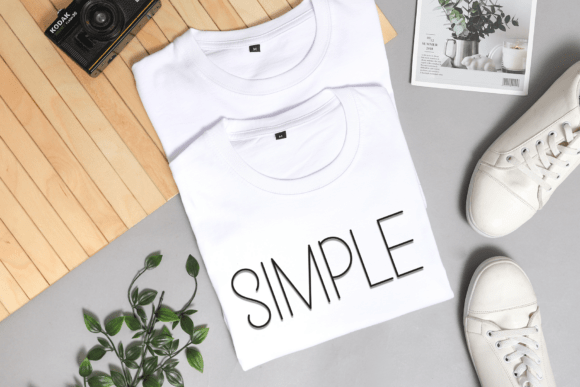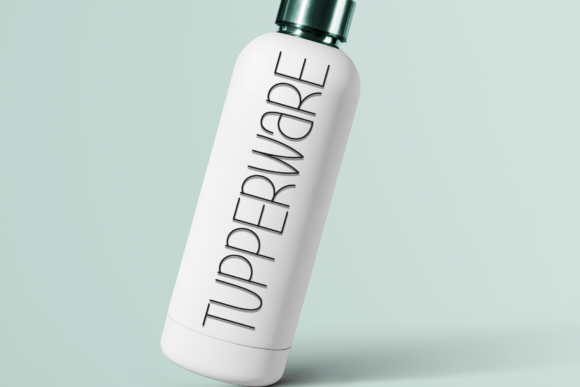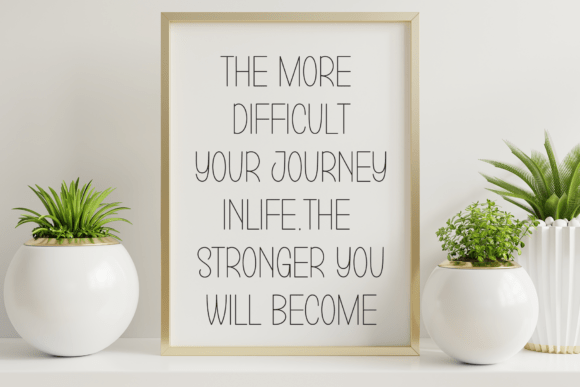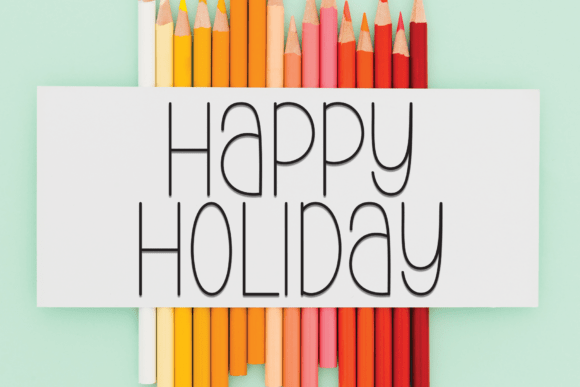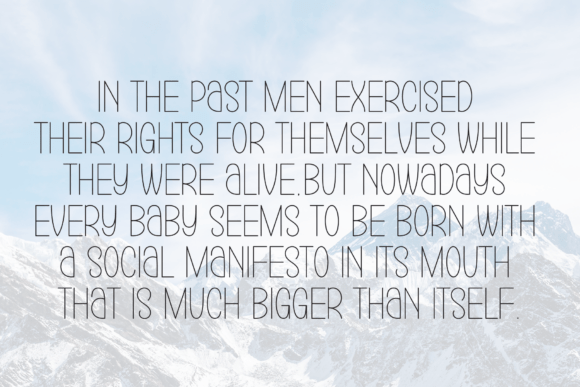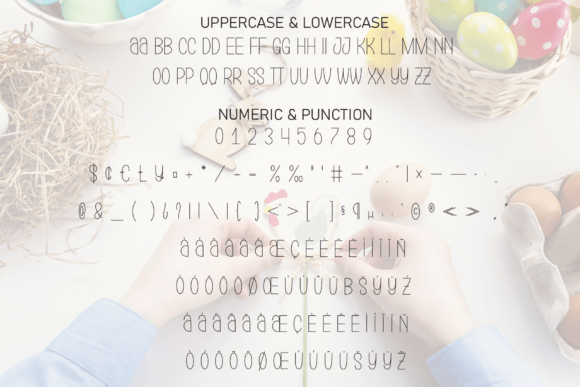
Easter Stickers Font: The Perfect Addition to Your Easter-Themed Designs
As Easter approaches, designers and crafters are on the lookout for the perfect fonts to add a touch of festivity to their projects. If you’re looking for a font that exudes a fresh, friendly vibe, look no further than Easter Stickers Font. This casual and neat display font is perfect for adding a playful touch to your Easter-themed designs, from packaging to posters and social media graphics.
Clean Lines and Relaxed Structure
Easter Stickers Font boasts clean lines and a relaxed structure, making it an excellent choice for a wide range of design projects. The font’s approachable design adds charm and clarity to projects, while maintaining a polished appearance. Whether you’re designing Easter-themed packaging, posters, or social media graphics, Easter Stickers Font is the perfect choice.
Easter Stickers Font is a versatile font that’s perfect for both designers and crafters. Designers can use the font to create stunning Easter-themed designs for clients, while crafters can use it to add a personal touch to their DIY projects. The font’s clean and simple design makes it easy to read and understand, making it perfect for a wide range of applications.
Easter-Themed Design Ideas
With Easter Stickers Font, the design possibilities are endless. Here are a few Easter-themed design ideas to get you started:
- Easter Egg Hunt Flyers: Create eye-catching flyers for an Easter egg hunt using Easter Stickers Font. Add some colorful graphics and a playful message to make the flyer stand out.
- Easter Card Designs: Design beautiful Easter cards for friends and family using Easter Stickers Font. Add some cute Easter-themed graphics and a heartfelt message to make the card special.
- Easter Packaging: Add a touch of festivity to your Easter packaging with Easter Stickers Font. Use the font to create cute labels, tags, and packaging designs that will make your products stand out.
- Easter Social Media Graphics: Create engaging Easter-themed social media graphics using Easter Stickers Font. Add some colorful graphics and a playful message to make the graphic shareable.
Why Choose Easter Stickers Font?
So, why choose Easter Stickers Font for your Easter-themed designs? Here are a few reasons:
- Fresh and Friendly Vibe: Easter Stickers Font exudes a fresh, friendly vibe that’s perfect for Easter-themed designs.
- Clean and Simple Design: The font’s clean and simple design makes it easy to read and understand.
- Versatile: Easter Stickers Font is a versatile font that can be used for a wide range of design projects.
- Polished Appearance: The font’s polished appearance makes it perfect for professional designs.
In conclusion, Easter Stickers Font is a great addition to any Easter-themed design project. Its fresh, friendly vibe, clean lines, and relaxed structure make it perfect for a wide range of applications. Whether you’re a designer or crafter, Easter Stickers Font is a versatile font that will help you create stunning Easter-themed designs. So, download Easter Stickers Font today and add a touch of festivity to your designs!